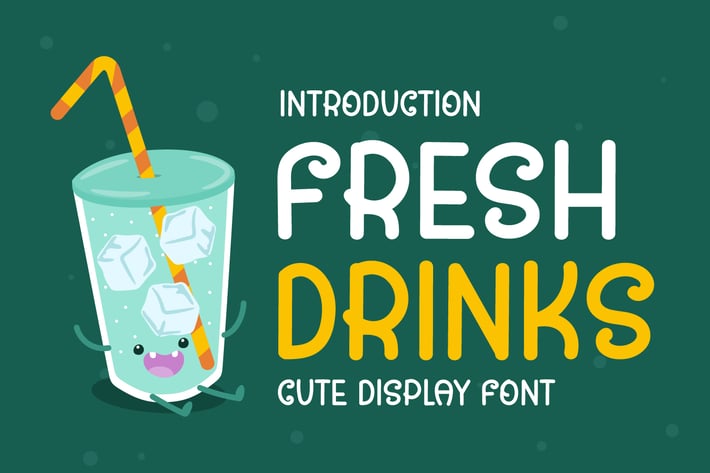
Fresh Drinks - Cute Display Font
Introducing Fresh Drinks - Cute Display Font
Fresh Drinks is a cute and simple display font. Trendy, adaptable and readable, this font will complement any design idea you wish to bring to life.